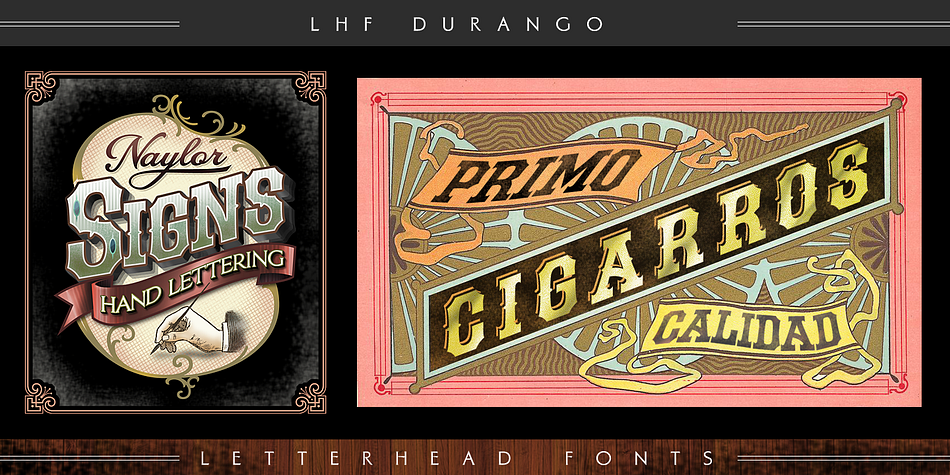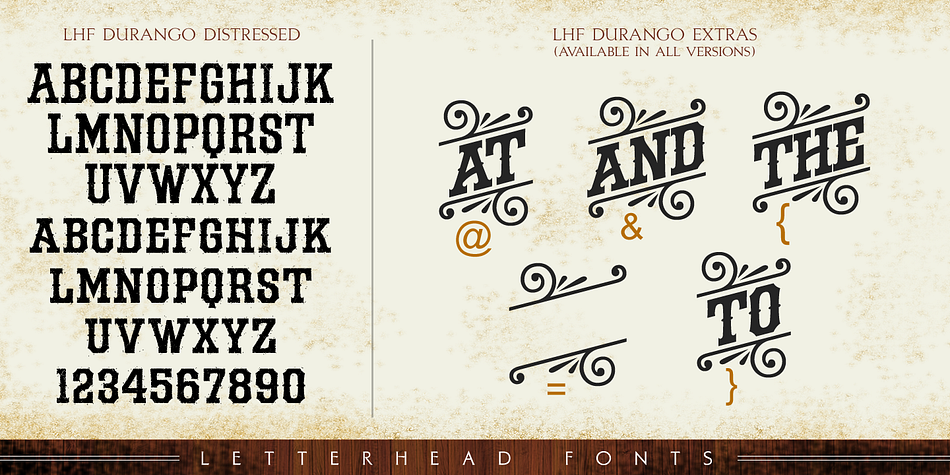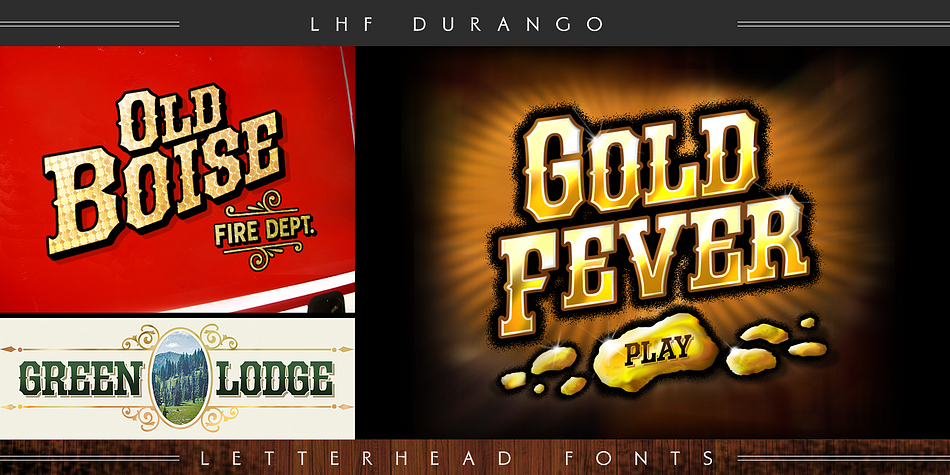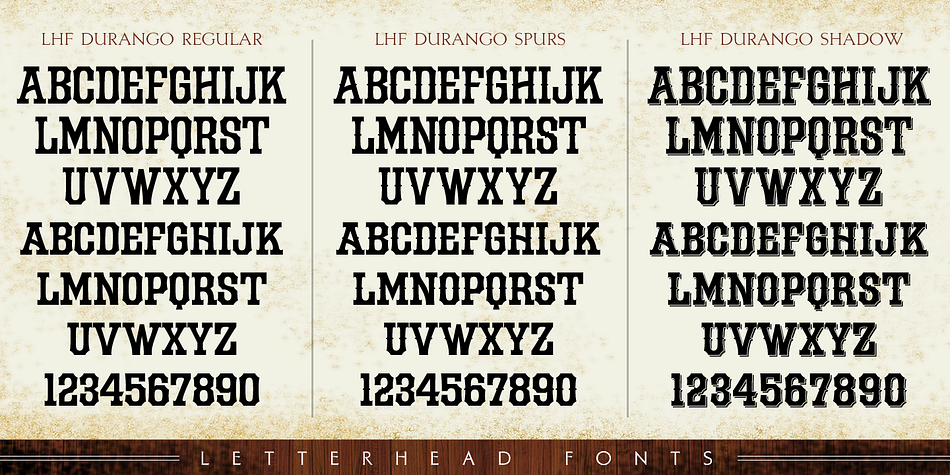
Designed by Denise Bayers, LHF Durango is a western and display slab font family. This typeface has four styles and was published by Letterhead Fonts.
LHF Durango is a rustic Western style, inspired by the opening credits and title of the 1957 version of 3:10 to Yuma. Set includes 4 fonts: Regular, Spurs, Shadow and Distressed. Each font features larger uppercase letters for display purposes. The Distressed version features small caps that have been carefully distressed differently from the large caps for a more organic and natural look. Also includes 5 bonus words and scrolls (To, At, And, The and a blank one for your own message).